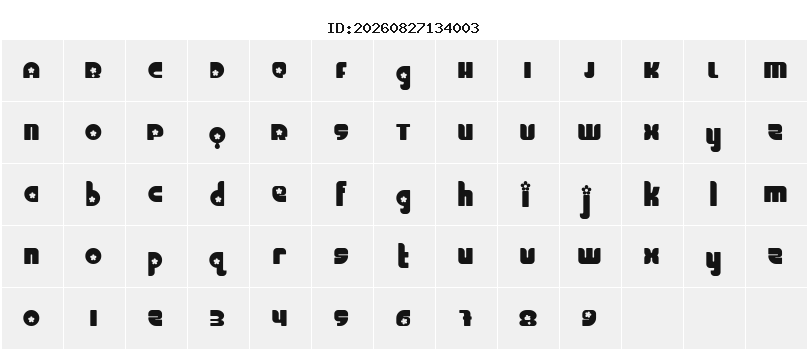
149-CAI978 Preview
About 149-CAI978.ttf
149-CAI978.ttf is a modern, elegant sans-serif font designed for ultimate readability and visual harmony. Perfect for branding, headlines, web design, and print materials.